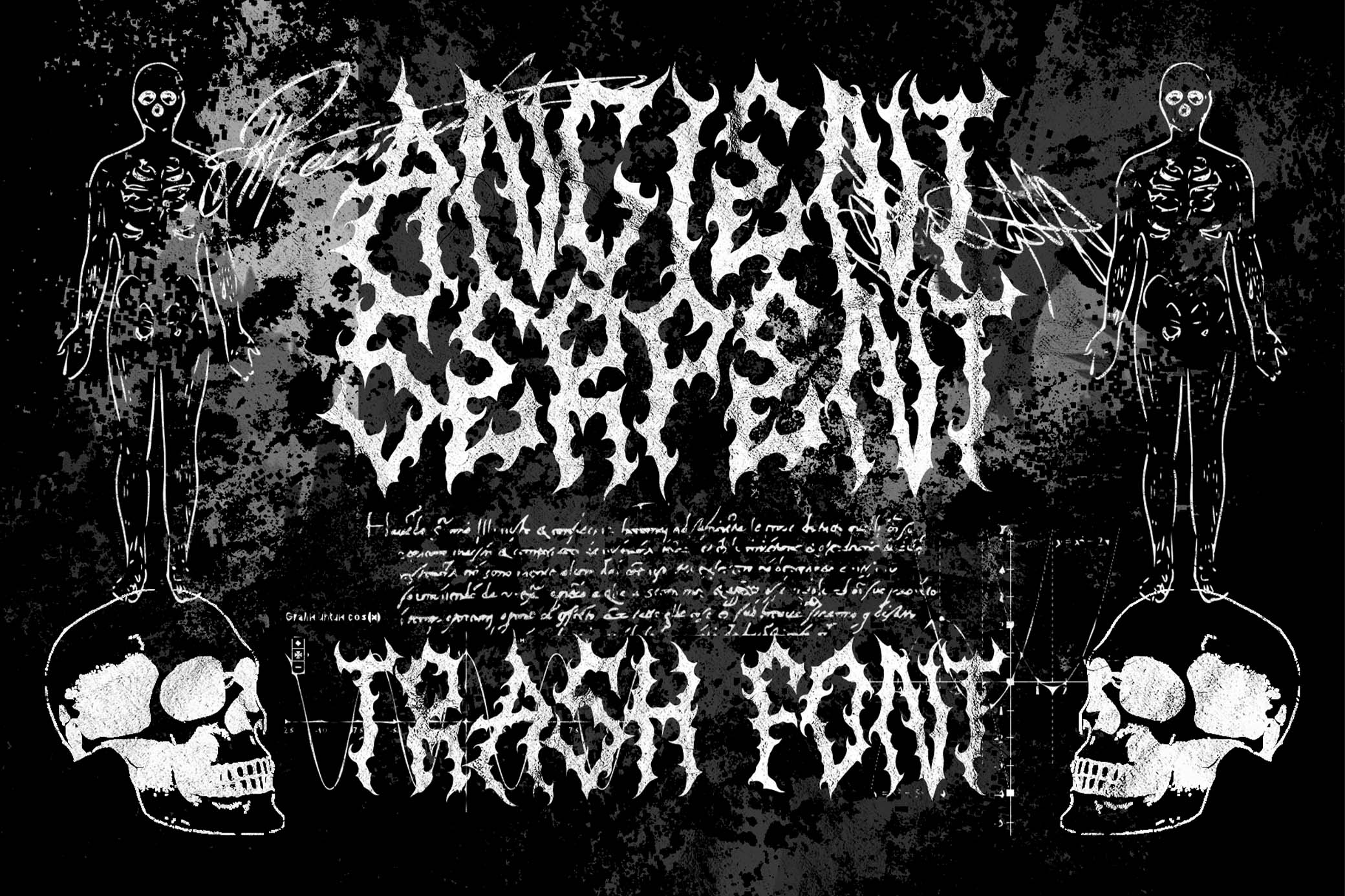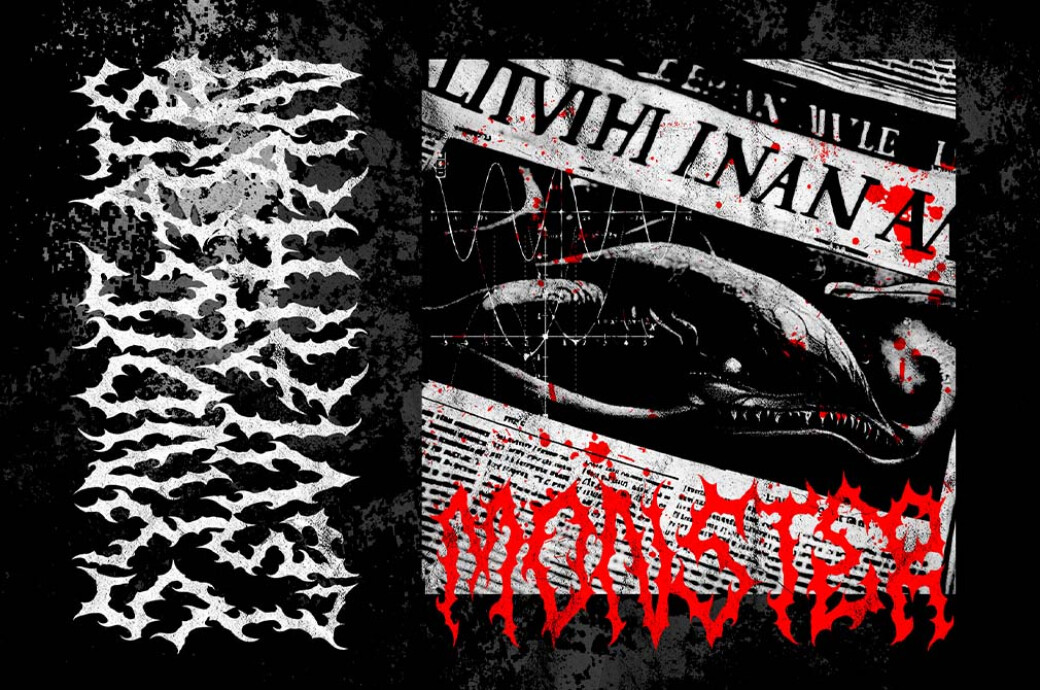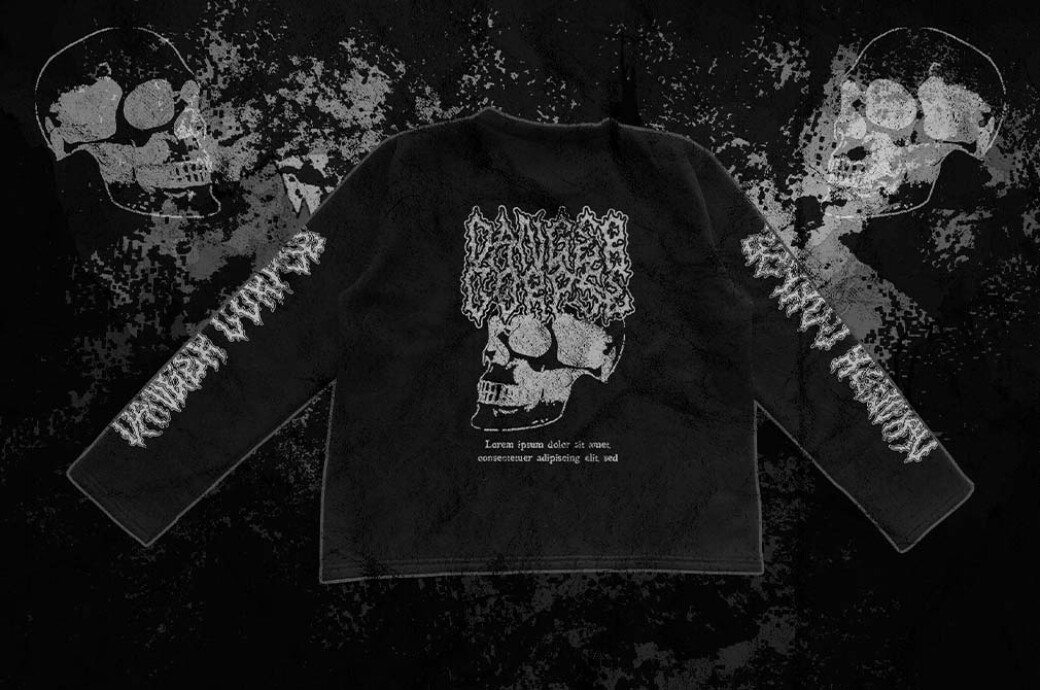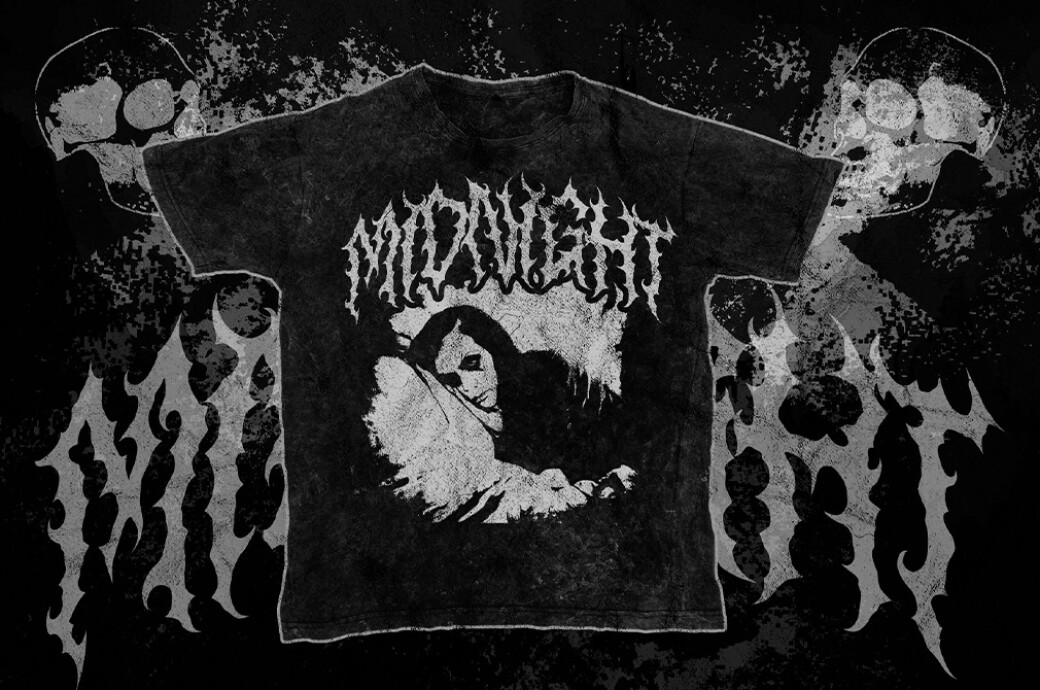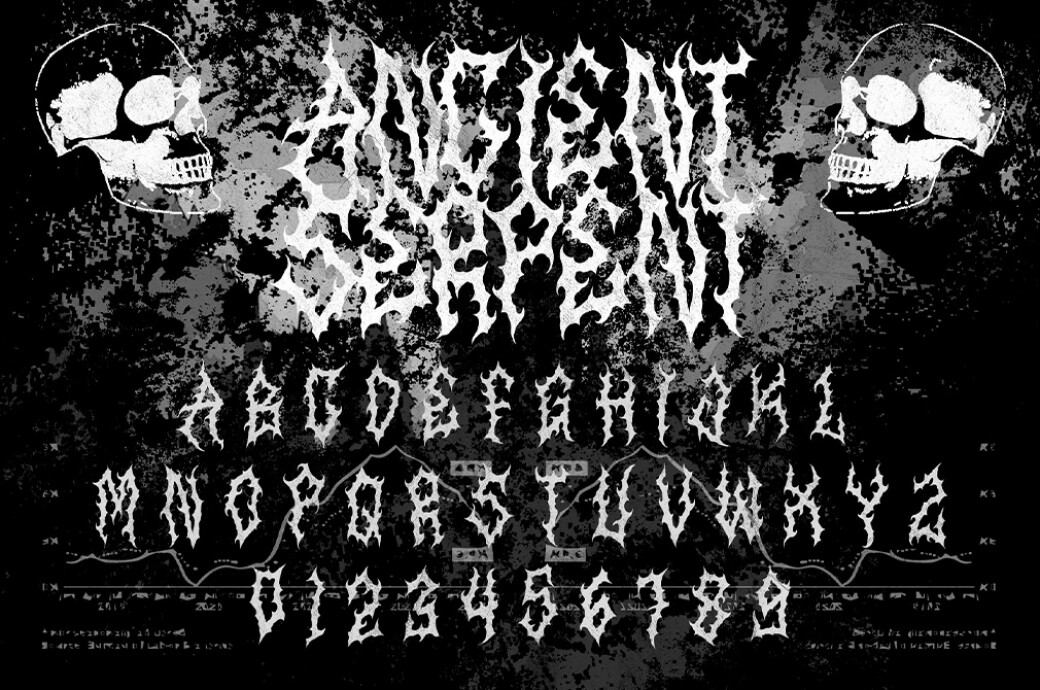
ANCIENT SERPENT — Trash Metal Font
Tired of neat and minimalistic designs? Prepare to unleash a font so hardcore, it'll make your speakers blast with headbanging riffs!Introducing Ancient Serpent, the font that brings the power and aggression of metal music right into your designs. This font ain't for the weak-hearted — it's bold, aggressive, and dripping with raw energy. Whether you're designing album covers, logos, or merch, it's here to rock, packed with a full set of uppercase letters and numerals. With Ancient Serpent, you can finally channel the dark and intense vibe of metal music into your designs.